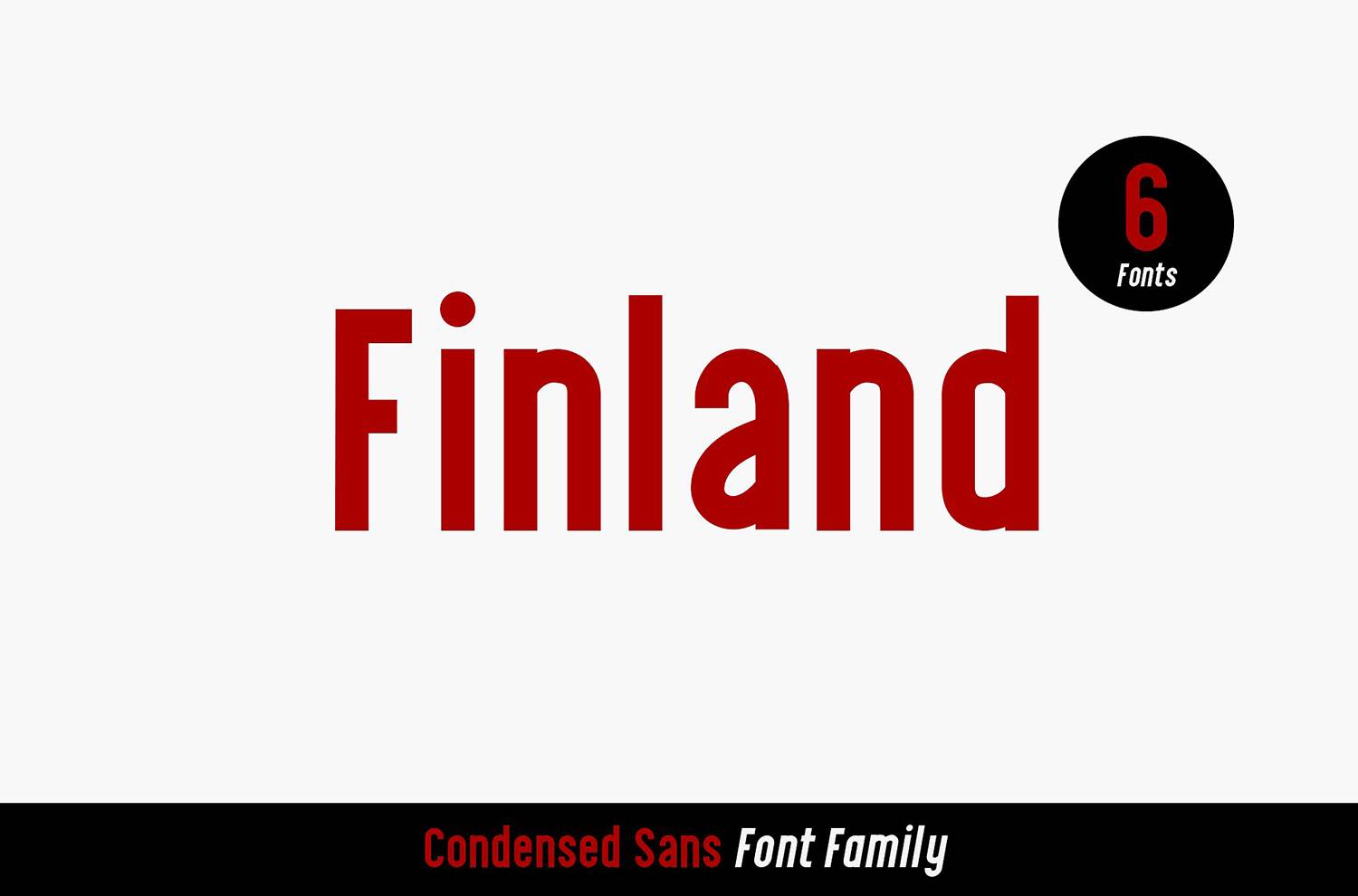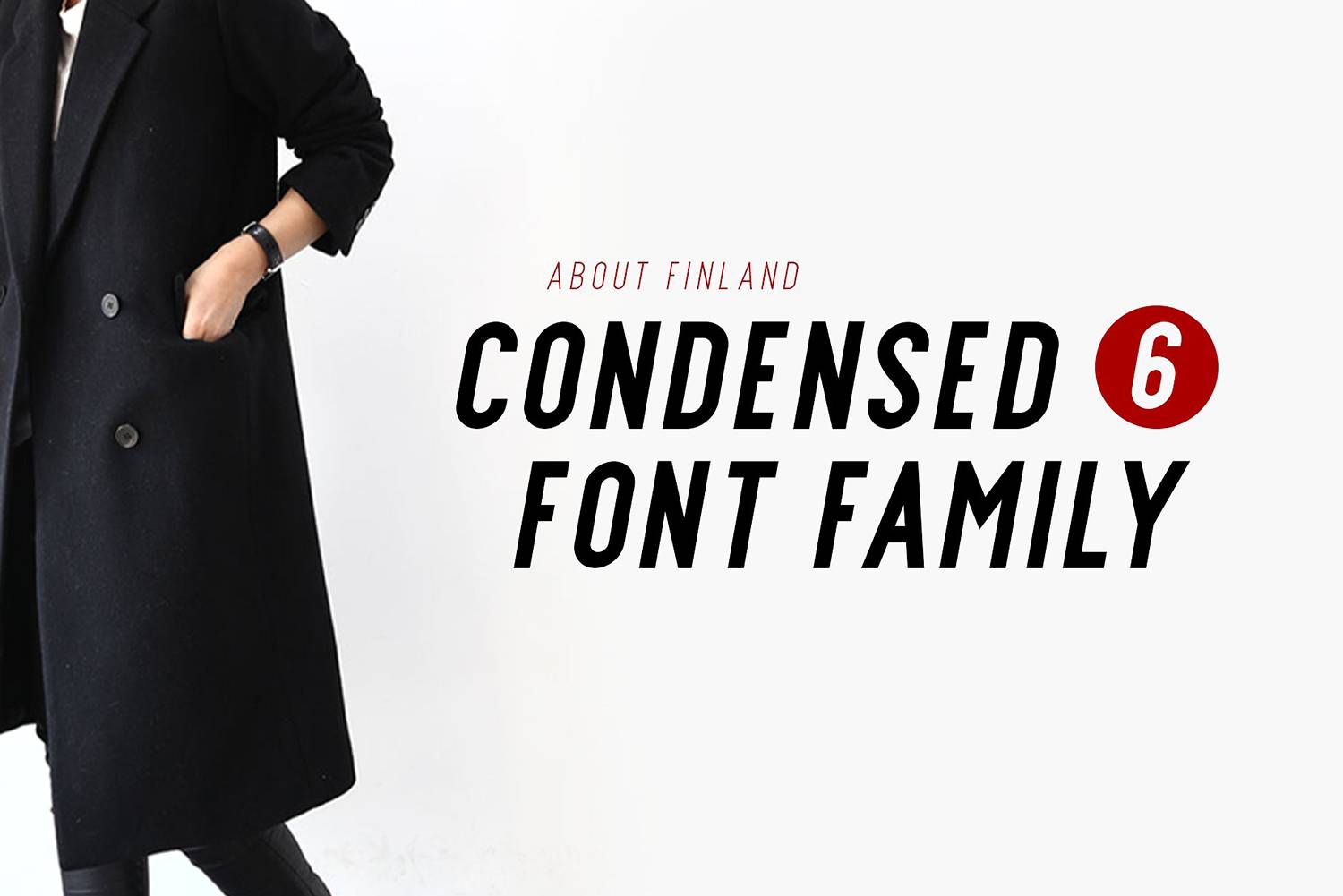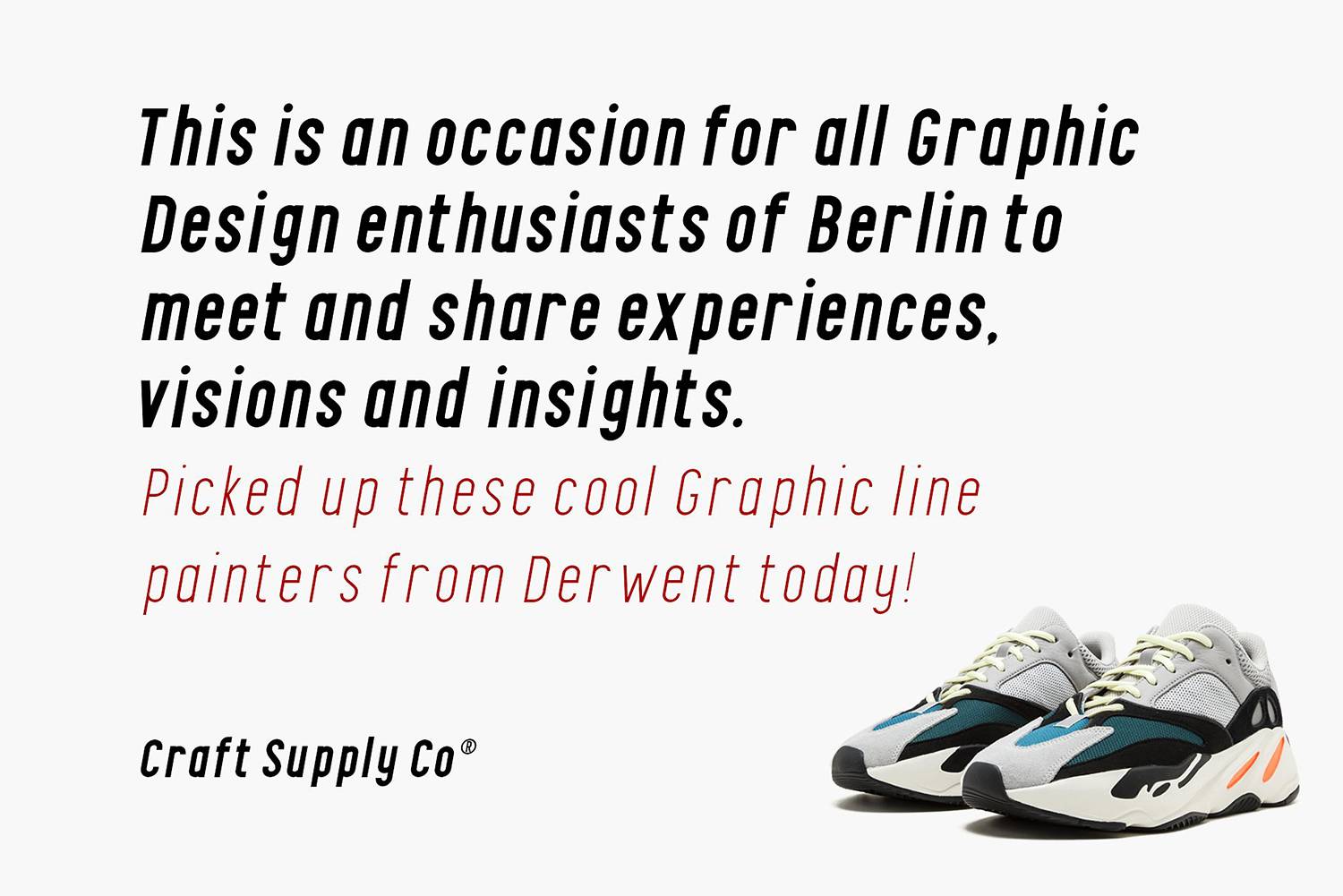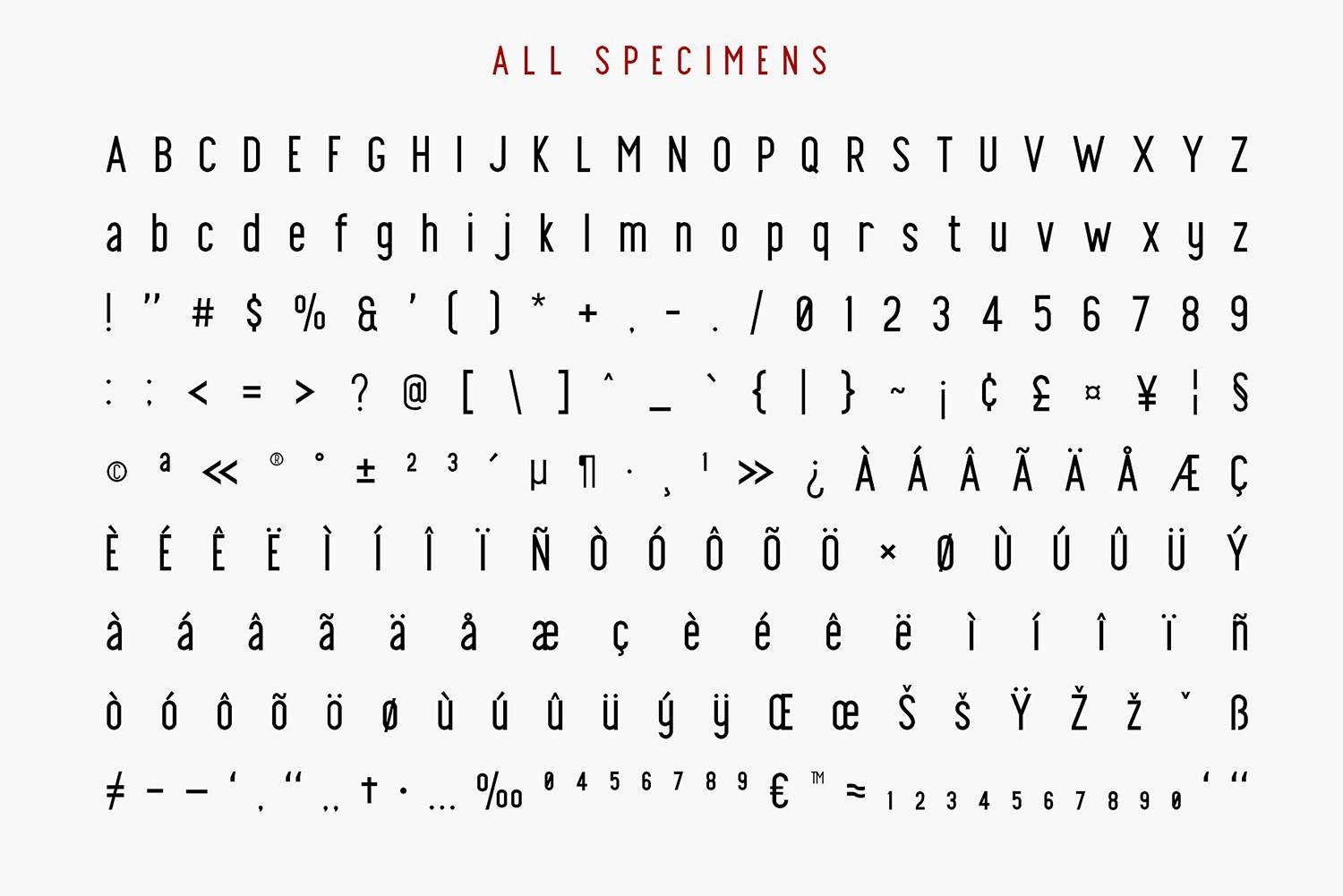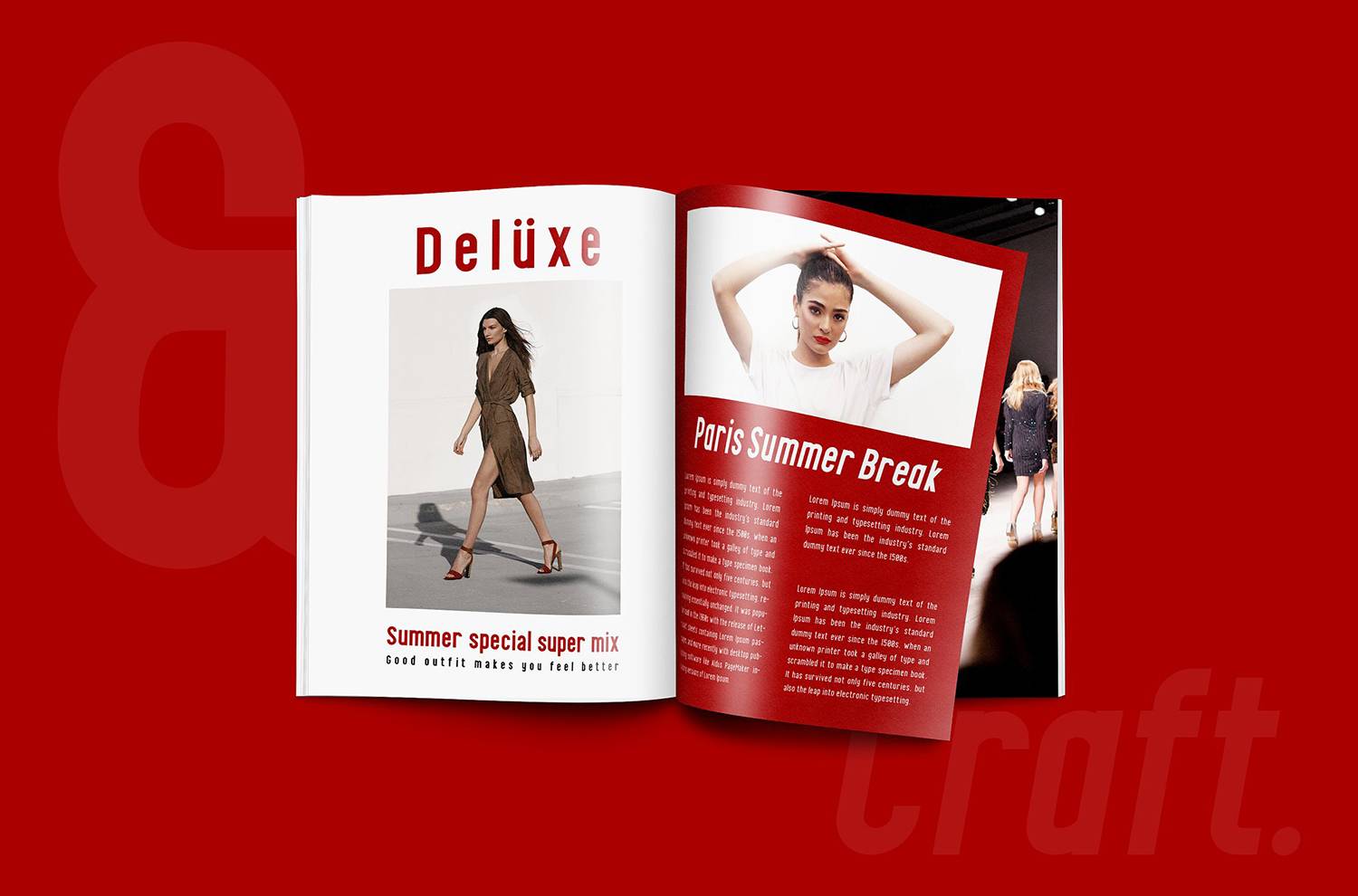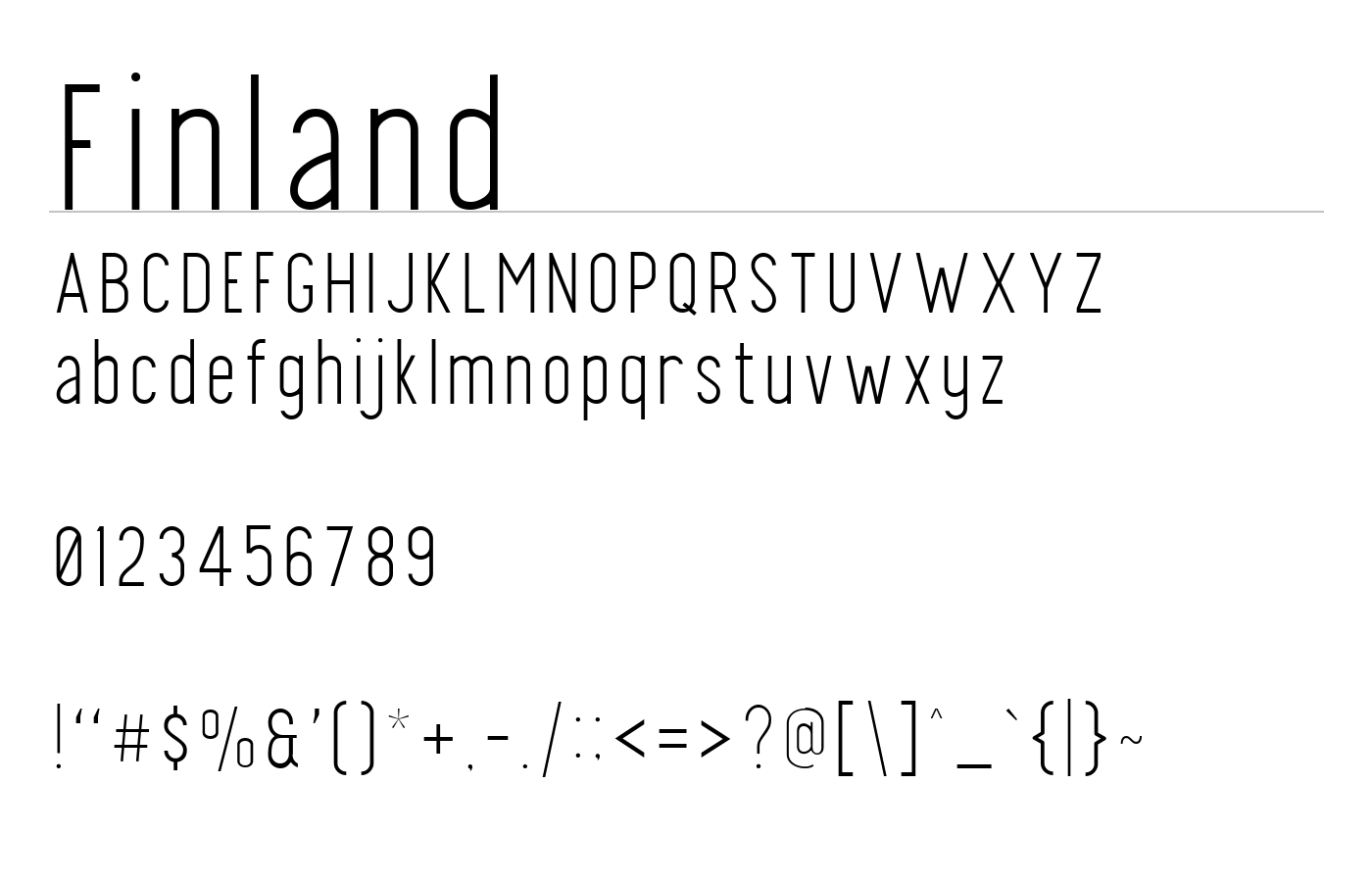
Finland Font is a slender, modern sans serif typeface characterized by its tall, narrow letterforms and consistent thin strokes, which give it a clean and elegant appearance. Its minimalist design with a high x-height and simple shapes makes it ideal for contemporary branding, editorial headlines, and stylish digital interfaces where a sleek, refined look is desired. This font works well in settings that require clarity and sophistication without sacrificing a distinctive, airy feel.
Finland Font
About Finland Font
| Designer | Craft Supply Co |